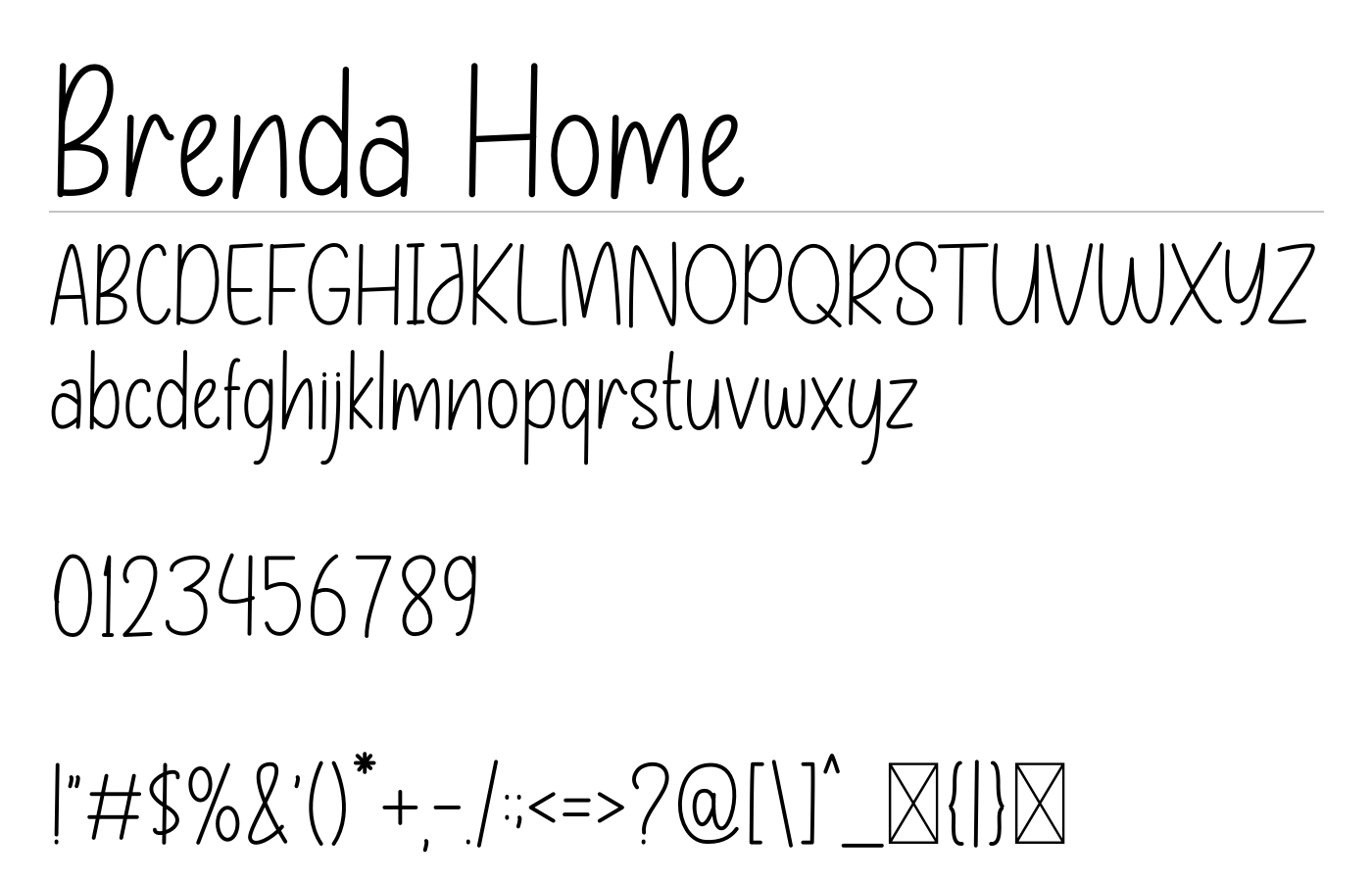
Brenda Home is a casual, hand-drawn sans serif font with a light weight and tall, narrow letterforms that give it a friendly and approachable feel. Its simple, slightly irregular strokes and high x-height make it perfect for informal branding, children's books, and playful editorial designs where readability and warmth are key. This font works especially well in headlines and short text that aim to convey a personal, charming touch.
Brenda Home Font
About Brenda Home Font
| Font family | Brenda Home Font |